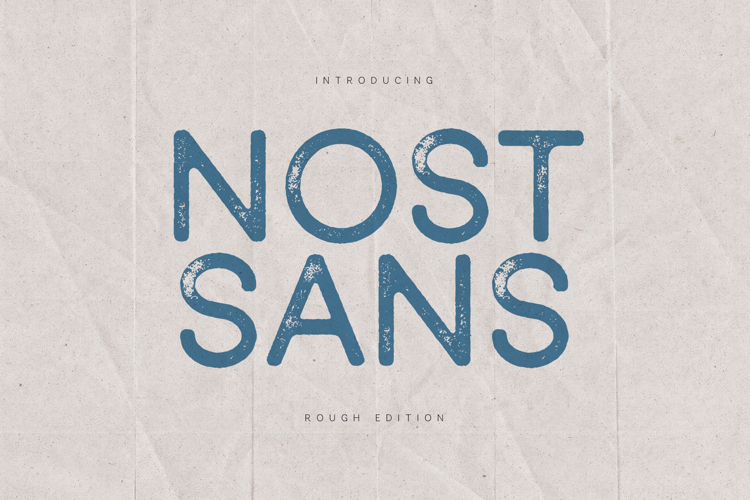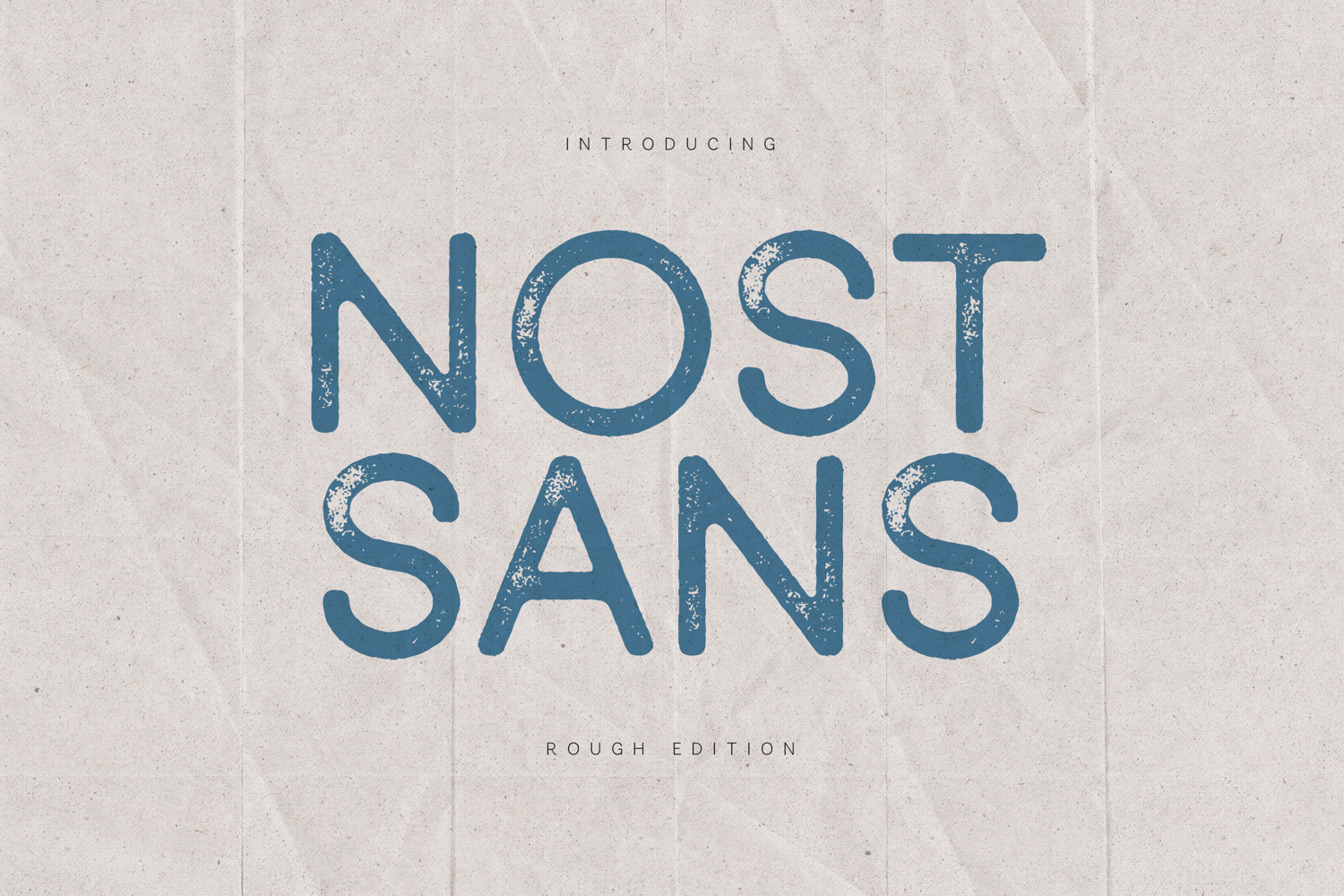
Nost Sans Rough Textured Sans Serif Font
Nost Sans is a friendly, rounded sans serif font with a subtle rough texture that adds warmth and authenticity to every design. Designed to feel modern yet approachable, it combines clean geometric structure with handcrafted imperfections.
The soft curves and slightly distressed finish make Nost Sans perfect for branding, packaging, posters, editorial layouts, apparel design, and social media graphics. It works beautifully for both bold headlines and supporting text.
Whether you’re building a modern lifestyle brand or creating eye-catching typography, Nost Sans delivers clarity with personality.
• Rough Textured Style